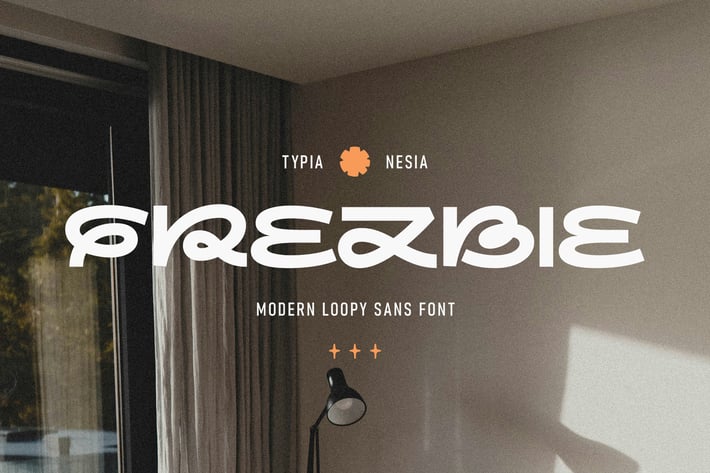
Frezbie - Modern Loopy Sans Font
Frezbie - Modern Loopy Sans Font - Playful Creative Unique Display Font
Frezbie is a Modern Loopy Sans Font that blends contemporary aesthetic with playful and unique loopy details. This font offers a fresh and lively approach to modern typography, perfect for adding personality and creativity to your designs, such as branding projects, playful logos, product packaging, social media graphics, creative posters, whimsical headlines, advertising campaign, logo design and anymore. Comes with uppercase and lowercase letters, punctuation, numerals, along with stylish ligatures and alternates for creative versatility. With multilingual support, this font ensures global accessibility, making it a perfect choice for international projects. Designed for those who want a unique, modern, and playful typeface, Frezbie offers both functionality and flair. Its loopy characteristics bring a sense of fun and sophistication to any project, making it suitable for a variety of creative applications.